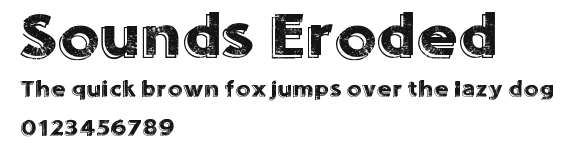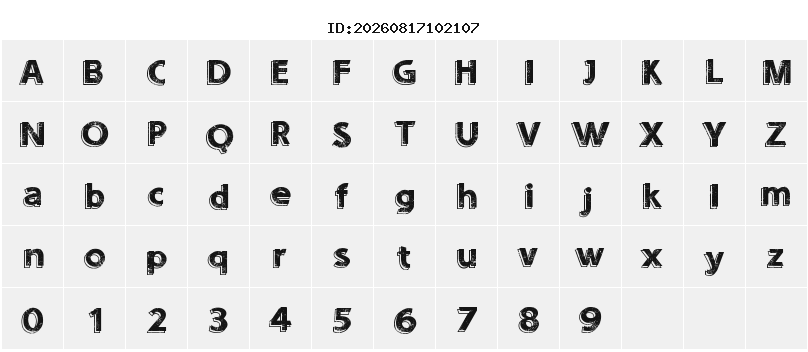
• Font Name: Sounds Eroded
• Full Font Name: Sounds Eroded
• Version: Version 1.00 November 10, 2014, initial release
• Designer: © Galdino Otten. 2013. All Rights Reserved
• Manufacturer: Galdino Otten
About Sounds Eroded.ttf
Sounds Eroded.ttf is a modern, elegant sans-serif font designed for ultimate readability and visual harmony. Perfect for branding, headlines, web design, and print materials.